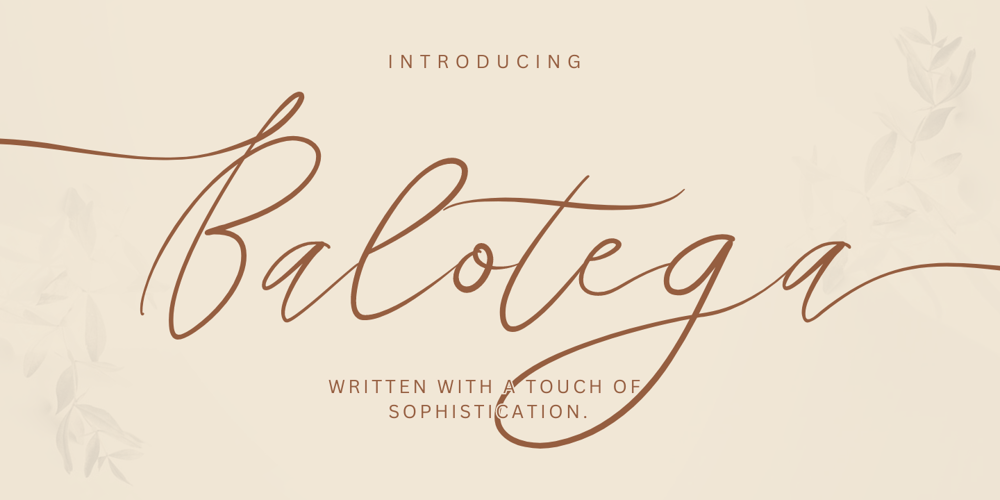
Balotega Font Family was designed by khaidir and published by Gatype. Balotega contains 1 styles and family package options. Introducing the exquisite Balotega handwritten script font! Elevate your designs with a blend of grace and contemporary flair. Crafted for creators seeking a touch of sophistication, this font offers a seamless fusion of beauty and modernity.Balotega boasts a wealth of OpenType features, including stylish swashes at the beginning and end of words, unique alternate characters for most lowercase letters, numerals, punctuation, alternates, ligatures, and support for various languages. With Stellars, you can bring a captivating touch to branding, invitations, social media, and more. Experience design innovation with Stellars!